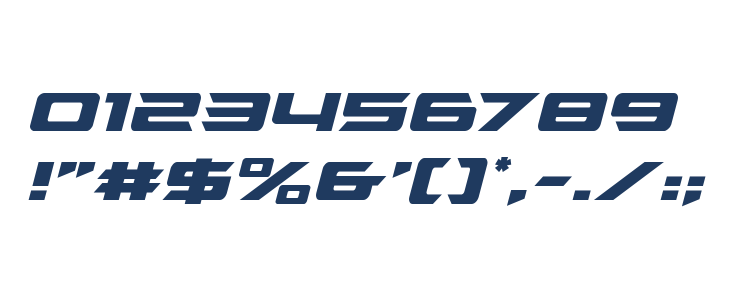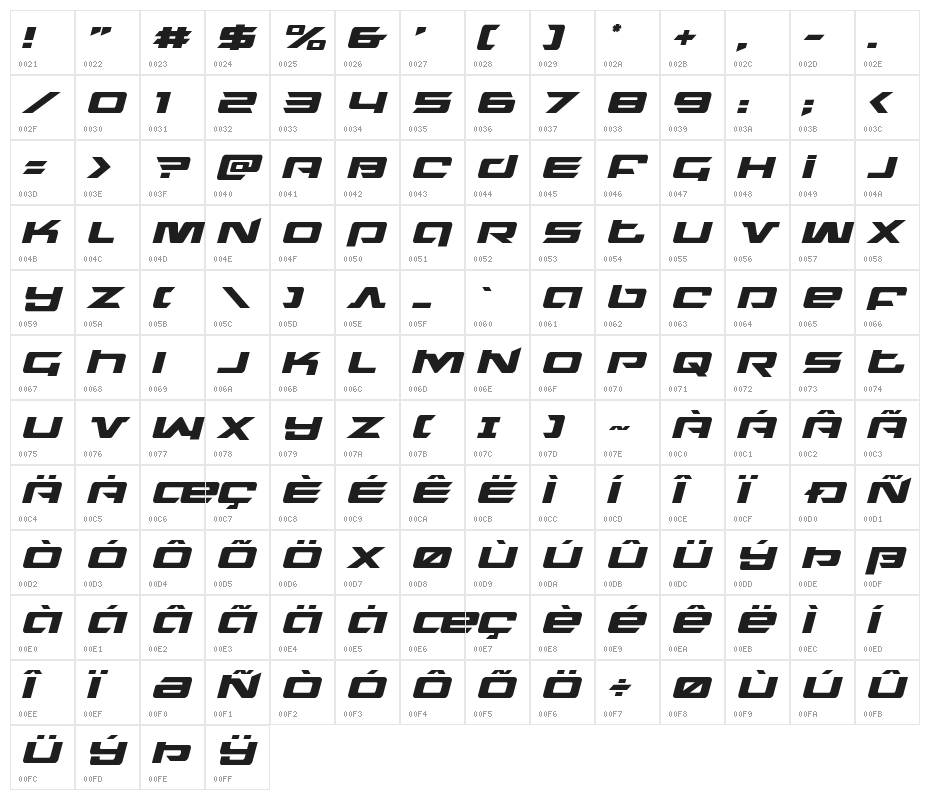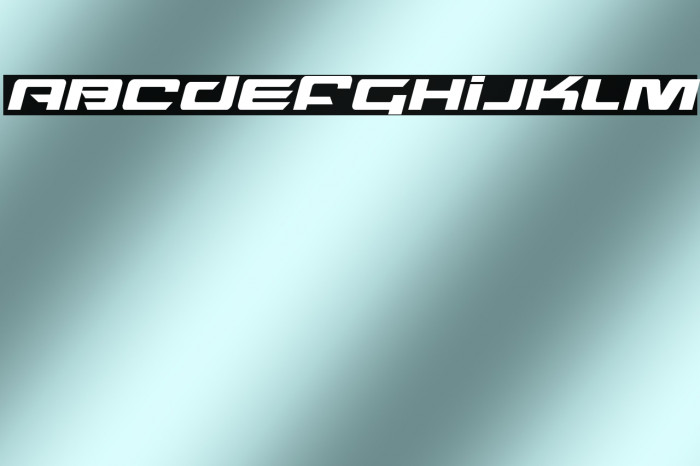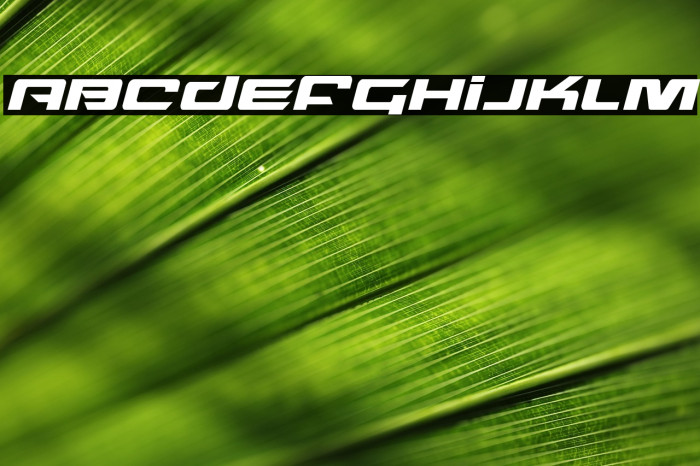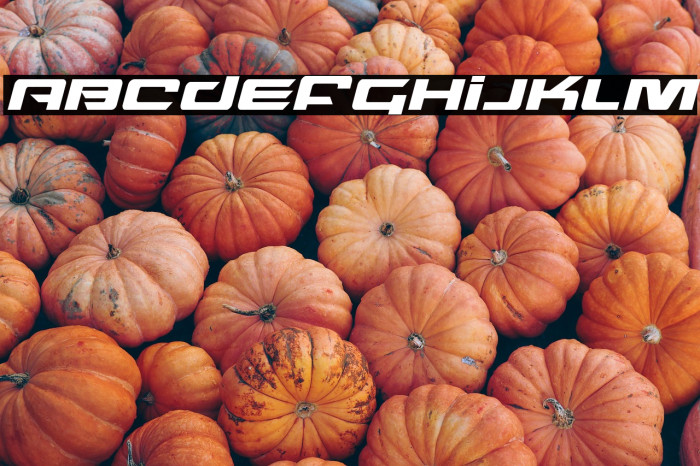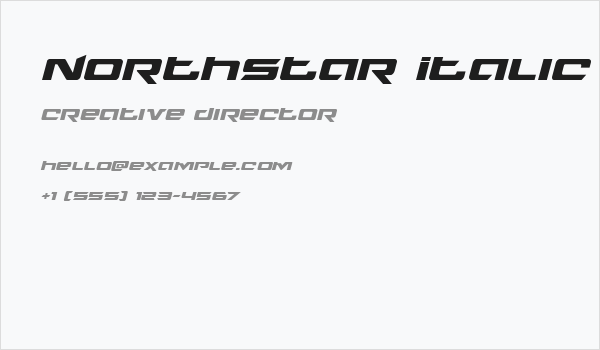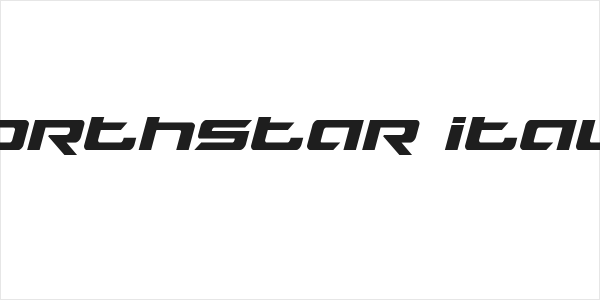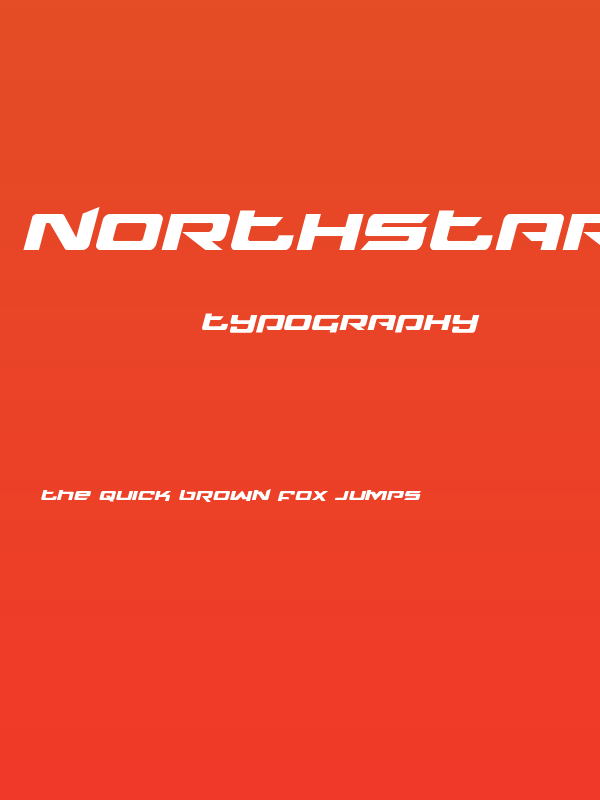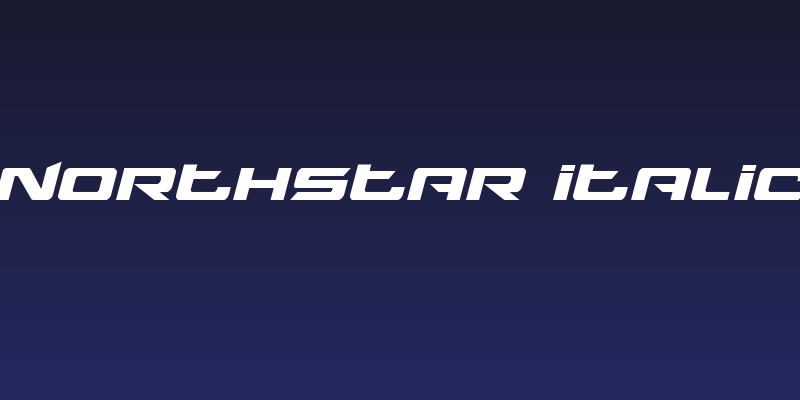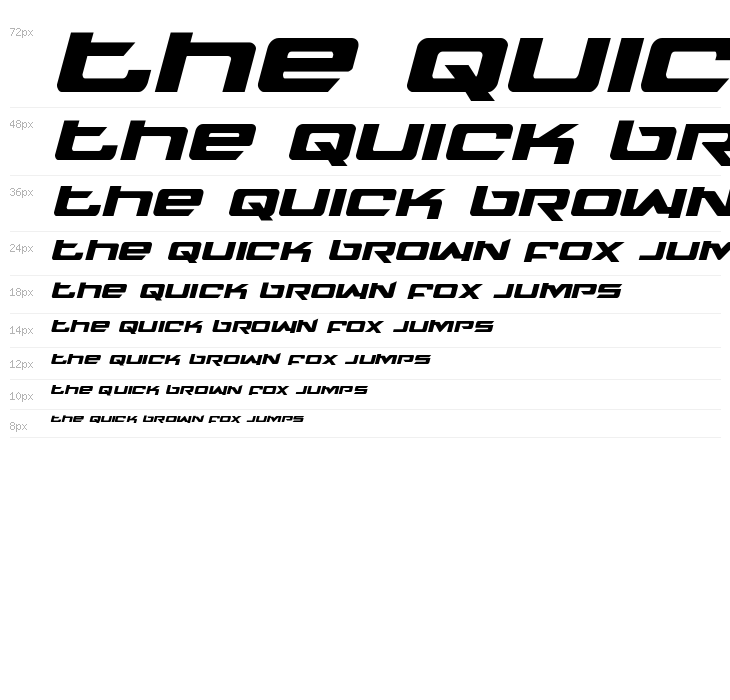
Northstar Italic Font
Northstar Italic Description
This font features a bold, italicized style with a futuristic and dynamic appearance. The characters are angular and slightly condensed, giving a sense of movement and speed. The uppercase and lowercase letters maintain a consistent slant, enhancing the italic effect. The numbers and special characters follow the same design principles, ensuring uniformity across all glyphs. The font's sharp edges and geometric shapes make it stand out, suitable for projects that require a modern and edgy look.
Proposed ProjectsIdeal for technology branding, sports team logos, video game titles, and sci-fi themed posters.